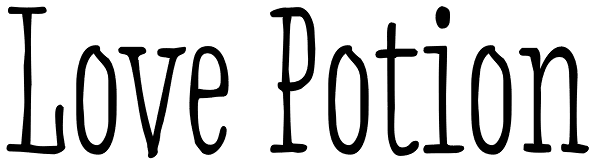
Love Potion
Hannes von Döhren created Love Potion. Three fonts (Regular/Bold/Ornaments) that include extravagant Ligatures, Swash Letters, Catchwords, Arrows, Borders and other little specials. The hand drawn serif type family is intended to be used in...